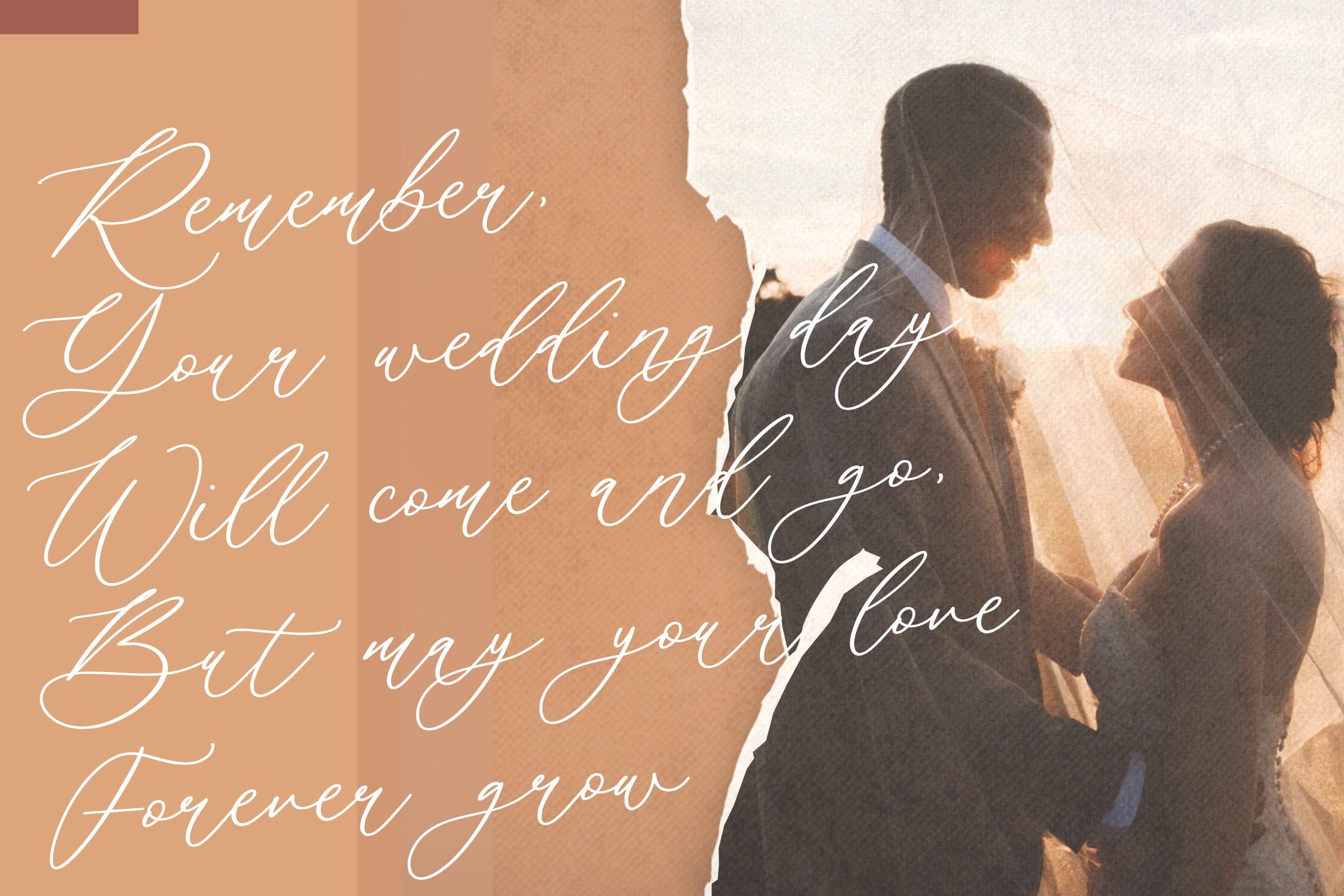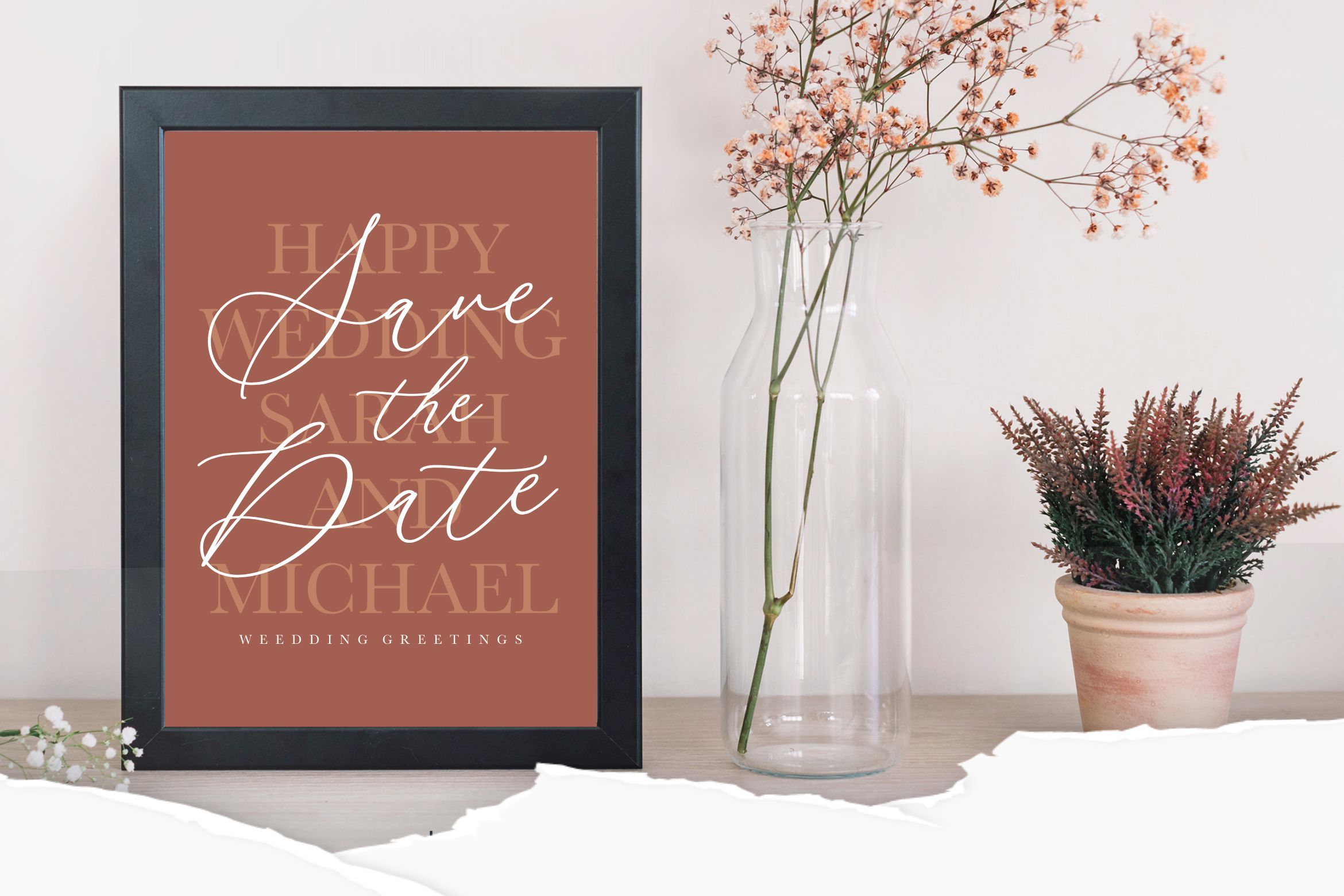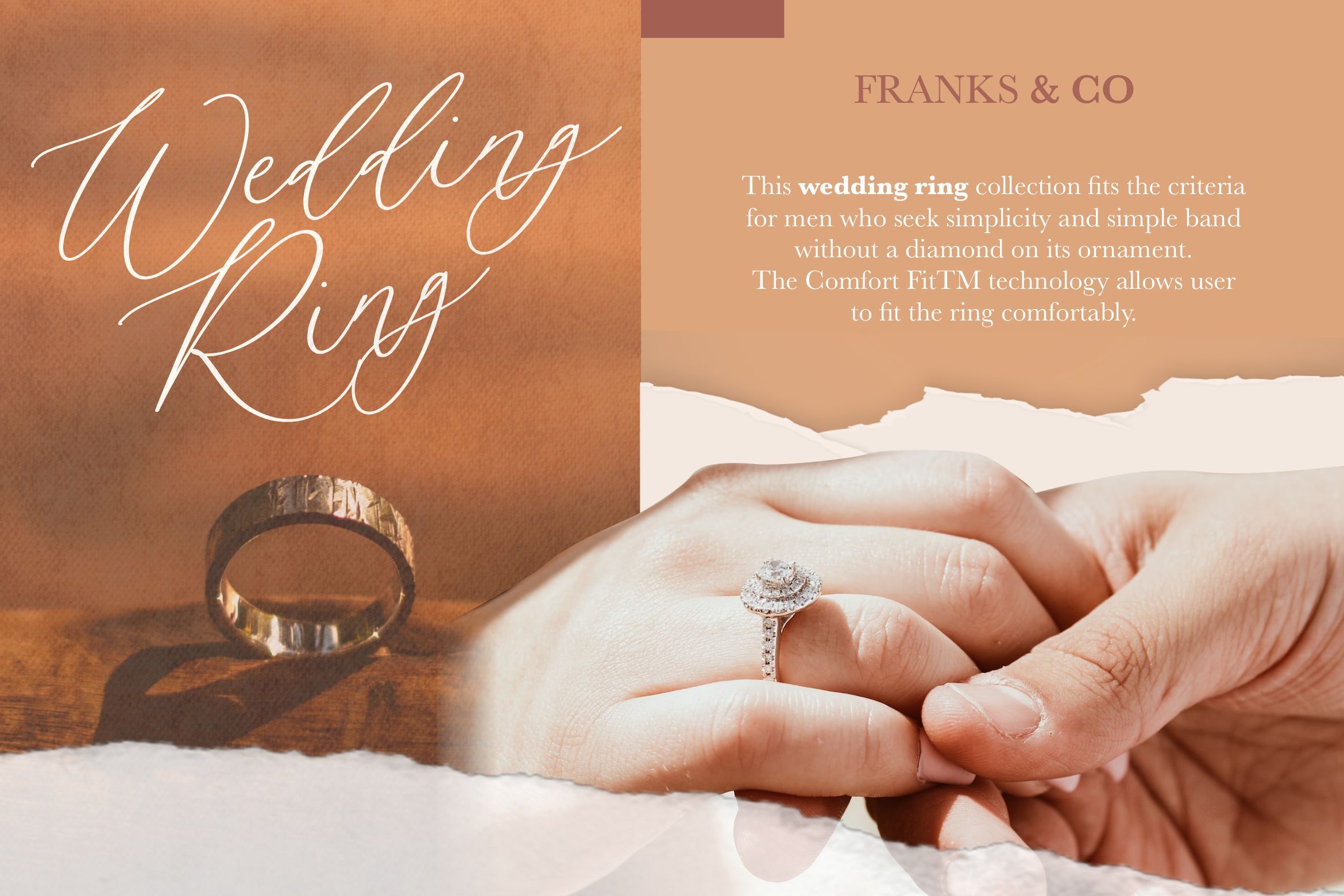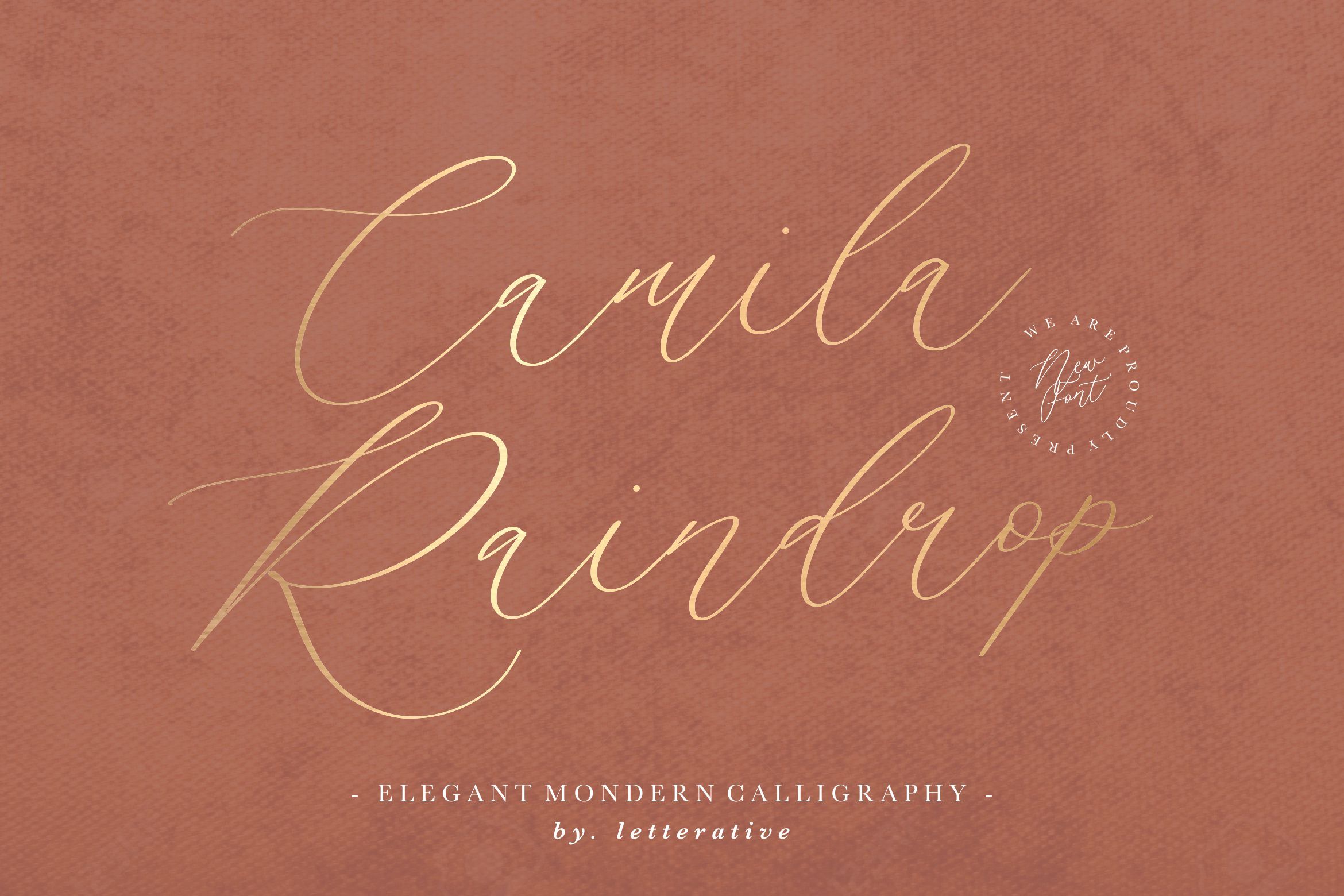
About Camila Raindrop Elegant Modern Calligraphy Font
Introducing by Letterative Studio : Camila Raindrop Font Camila Raindrop is a Elegant Modern Calligraphy Font Camila Raindrop is a unique and elegant handwritten font. Add this font to your creative ideas and notice how it will make them stand out! This font includes : TTF and OTF Camila Raindrop also multilingual support Enjoy the font! Feel free to comment or feedback Send me PM or email Thank you!